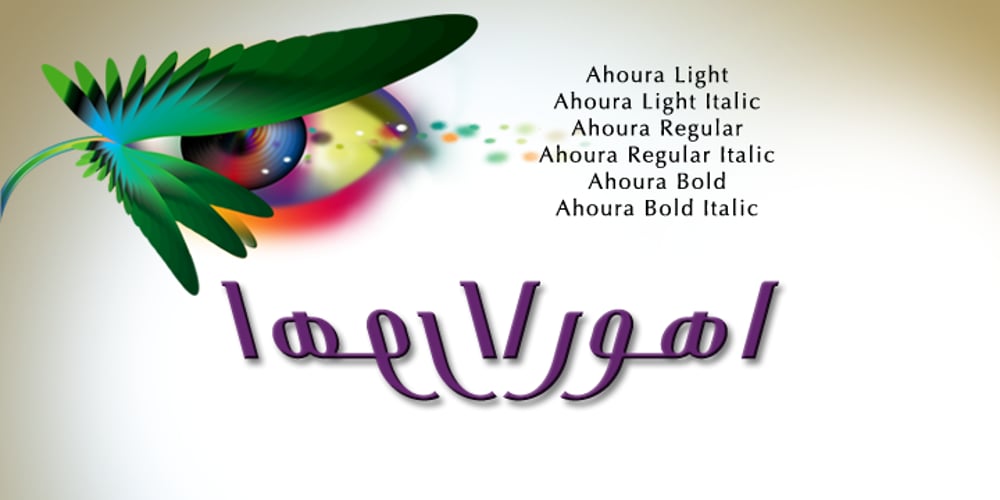
Ahoura
Ahoura font
Ahoura Font Family was designed by Naghi Naghashian and published by Naghi Naghachian. Ahoura contains 6 styles and family package options. The Ahoura font family, designed by Naghi Naghashian, was developed considering specific research and analysis on Arabic characters and definition of their structure. The Ahoura innovation is a contribution to modernisation of Arabic typography; gives the Arabic font letters real typographic arrangement and provides for more typographic flexibility. This step was necessary after more than two hundred years of relative stagnation in Arabic font design. Ahoura supports Arabic, Persian, and Urdu and includes proportional and tabular numerals for the supported languages. The Ahoura Font family is available in three weights; Light, Regular and Bold. Each has two different styles– normal and italic. Ahoura is the first real italic Arabic typeface known until now and its intuitive design arrangement fulfils the following needs: – It is precisely crafted for use in electronic media and it fulfils the demands of electronic communication. Ahoura is not based on any pre-digital typefaces and it is not a revival. Rather, its forms were created with today’s ever-changing technology in mind. – Ahoura is suitable for multiple applications, and gives the widest potential for acceptability. – It is extremely legible not only in its small sizes, but also when the type is filtered or skewed, e.g., in Photoshop or Illustrator. Ahoura’s simplified forms may be artificially obliqued with In Design or Illustrator, without any degradation of its quality for the effected text. – Ahoura is an eye-catching and classy typographic image that developed for multiple languages and writing conventions. – Ahoura uses the very highest degree of geometric clarity along with the necessary amount of calligraphic references. The Ahoura typeface is of a high vibration that is finely balance between calligraphic tradition and the contemporary sans serif aesthetic commonly seen in Latin typography.